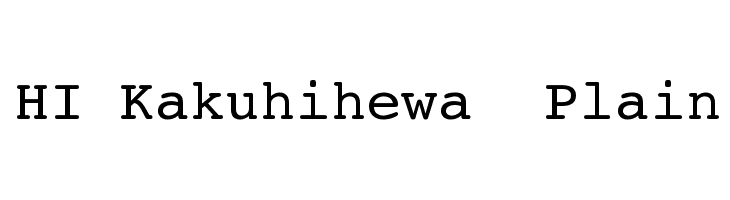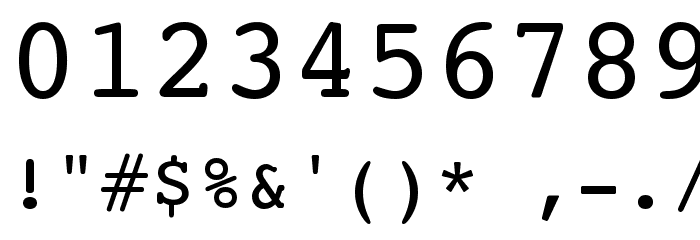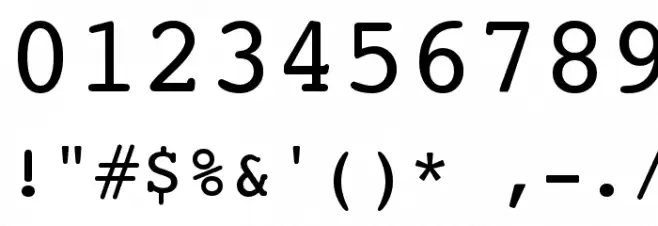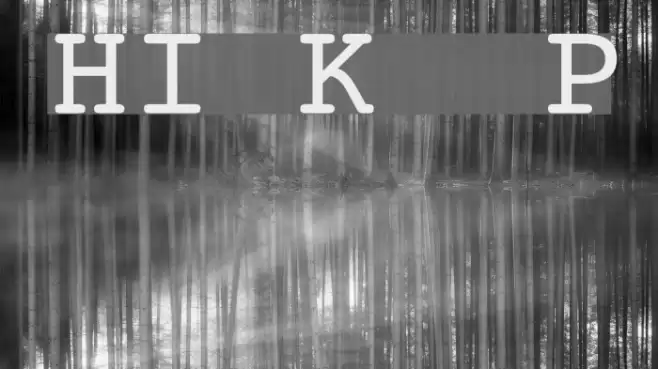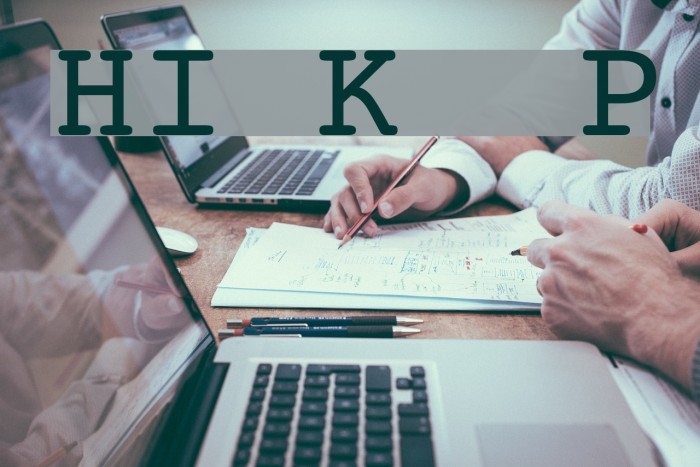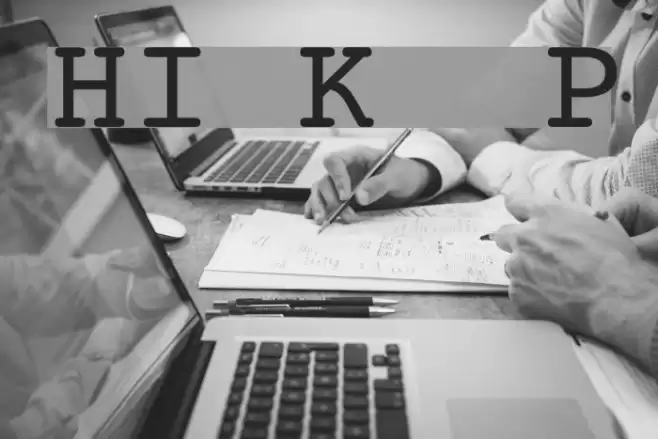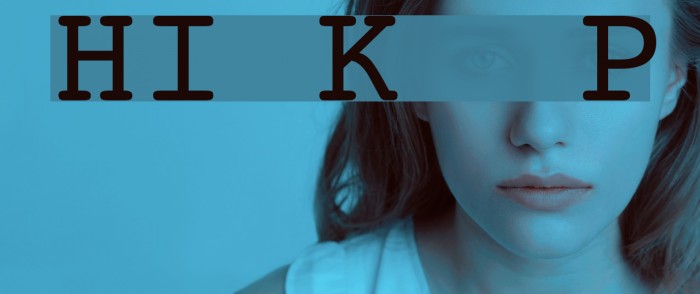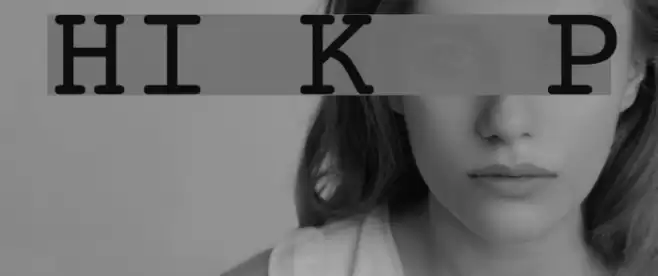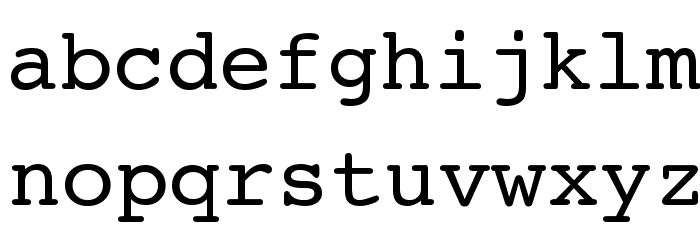
HI Kakuhihewa Plain Font
HI Kakuhihewa Plain Description
This font features a clean and structured design with a monospaced style, characterized by uniform character widths. The letters have a mechanical and precise appearance, making it ideal for technical and coding applications. The strokes are consistent in thickness, providing a balanced and stable look. The uppercase and lowercase letters maintain a uniform height, contributing to its orderly aesthetic. The numerals and special characters are clear and easily distinguishable, enhancing readability. Overall, the font exudes a modern and professional vibe, suitable for various digital and print environments.
| Use Case | Coding, Technical documentation, Digital interfaces |
| Proposed Projects | Ideal for coding, technical documentation, and any project requiring a structured and readable typeface. |